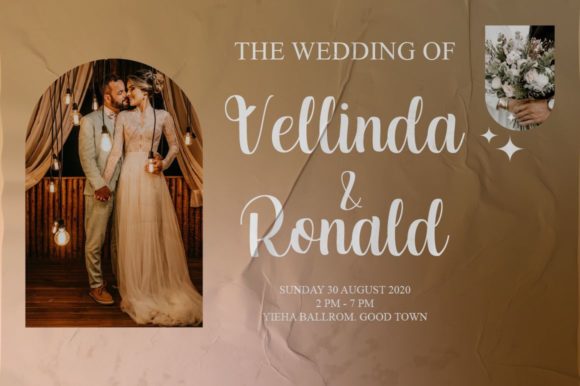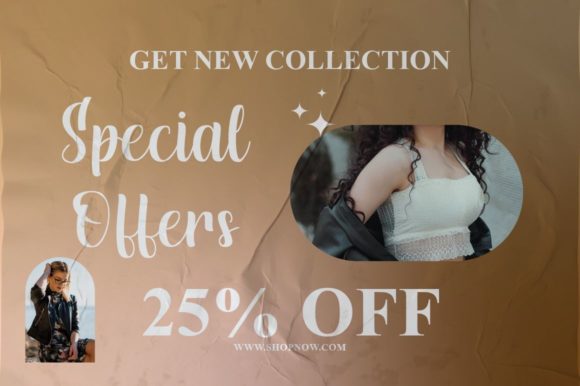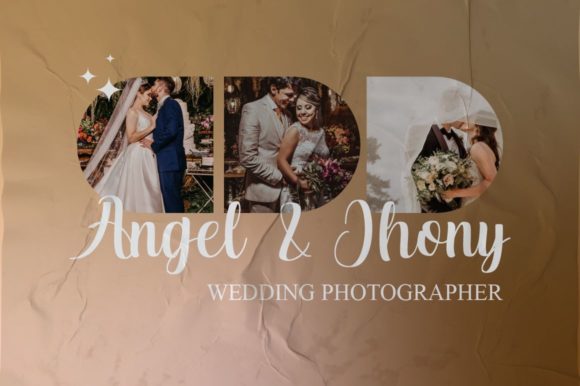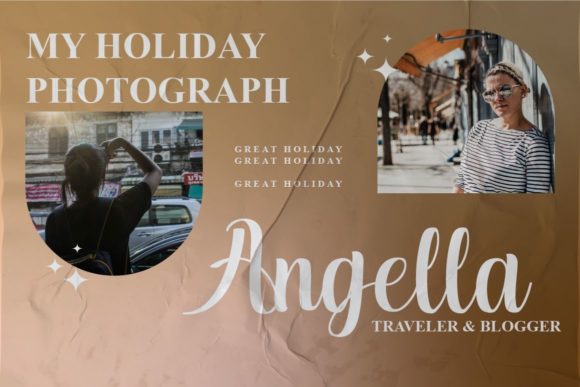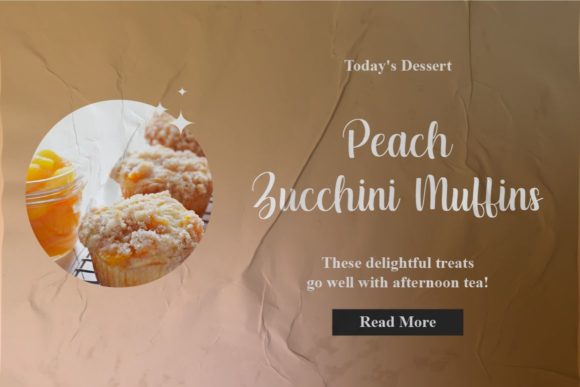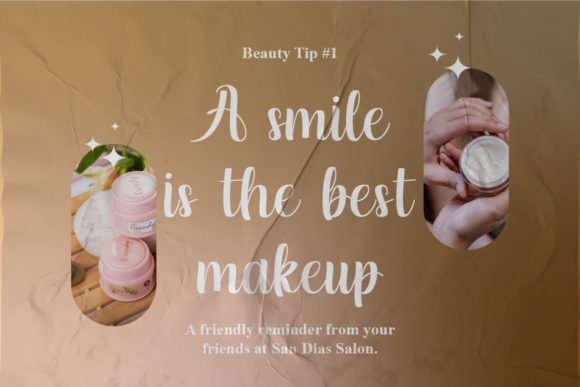
Davynci Font: Elevate Your Designs with Elegance and Sophistication
In the world of typography, fonts play a crucial role in conveying the tone and personality of a brand or design. For designers and crafters seeking to add a touch of elegance and sophistication to their projects, the Davynci Font is an excellent choice. This beautiful script font is defined by its smooth curves, making it perfect for fashion branding, editorial designs, and a wide range of creative applications.
The Characteristics of Davynci Font
Davynci Font is a stunning script font that boasts a unique blend of classic and modern elements. Its smooth, flowing curves give it a luxurious feel, making it ideal for designs that require a high level of sophistication. The font’s elegant lines and refined features ensure that it looks great in both digital and print formats, offering versatility for various design projects.
Perfect for Fashion Branding
Fashion branding requires a font that exudes style, elegance, and sophistication. Davynci Font ticks all these boxes, making it an excellent choice for fashion designers and brands looking to create a lasting impression. Whether you’re designing a logo, packaging, or marketing materials, Davynci Font can help elevate your brand’s visual identity and make it stand out in a crowded market.
Ideal for Editorial Designs
Editorial designs, such as magazine layouts, book covers, and articles, require a font that is both readable and visually appealing. Davynci Font’s elegant script style makes it perfect for adding a touch of sophistication to editorial designs. Its smooth curves and flowing lines ensure that it looks great in both headings and body text, making it a versatile choice for a wide range of editorial projects.
Why Choose Davynci Font?
There are many fonts available for designers and crafters, but Davynci Font stands out for several reasons:
- Elegance and Sophistication: Davynci Font’s smooth curves and refined features give it a luxurious feel that is perfect for high-end designs.
- Versatility: This font is suitable for a wide range of design projects, from fashion branding and editorial designs to packaging and marketing materials.
- Readability: Despite its elegant style, Davynci Font remains highly readable, making it suitable for both headings and body text.
- Unique Style: Davynci Font’s unique blend of classic and modern elements ensures that your designs stand out from the crowd.
How to Use Davynci Font in Your Projects
Adding Davynci Font to your design projects is easy. Here are a few tips to get you started:
- Pair it with Other Fonts: Combine Davynci Font with other fonts to create a unique and visually appealing typography scheme.
- Experiment with Sizes and Colors: Play around with different sizes and colors to find the perfect combination for your design.
- Use it for Headings and Titles: Davynci Font’s elegant style makes it perfect for headings and titles, but don’t be afraid to use it for body text too.
Davynci Font is a beautiful and elegant script font that can elevate your designs to new heights. Its smooth curves, refined features, and versatile style make it perfect for fashion branding, editorial designs, and a wide range of creative applications. Whether you’re a designer, crafter, or simply someone looking to add a touch of elegance to your projects, Davynci Font is an excellent choice. So why wait? Add Davynci Font to your projects today and experience the power of elegant typography.